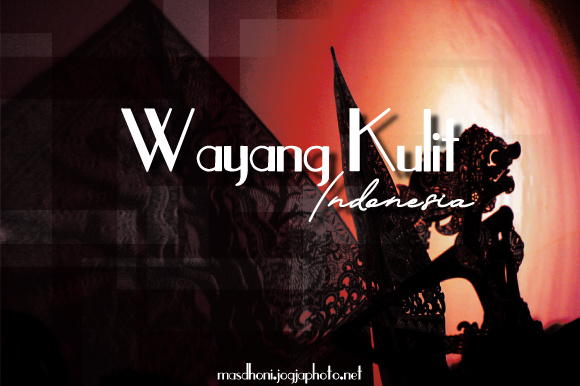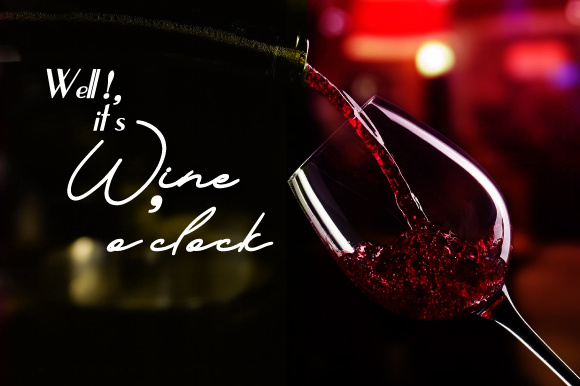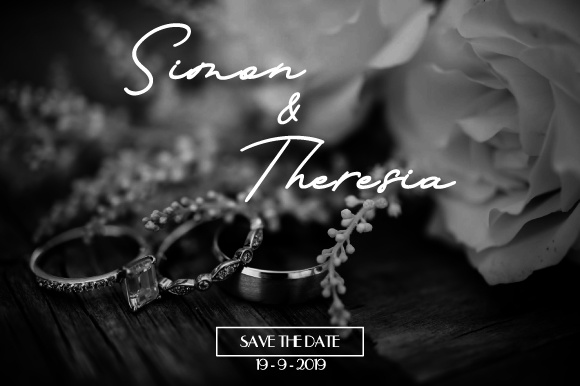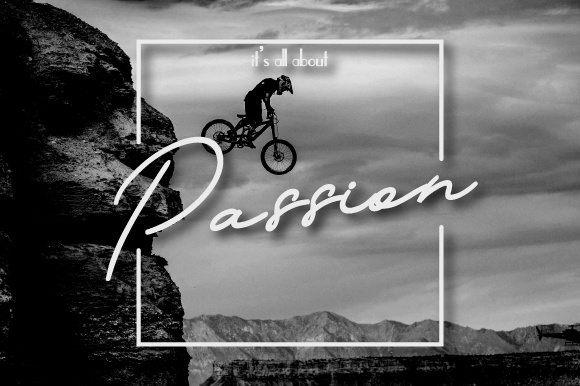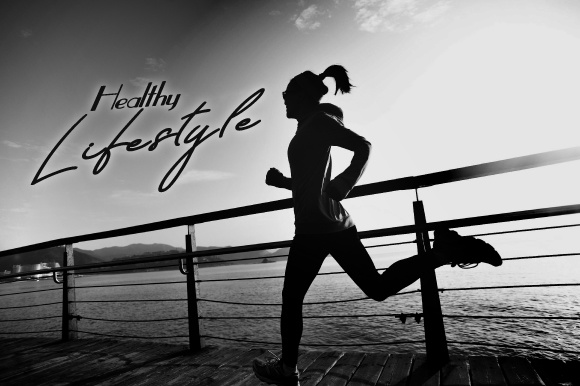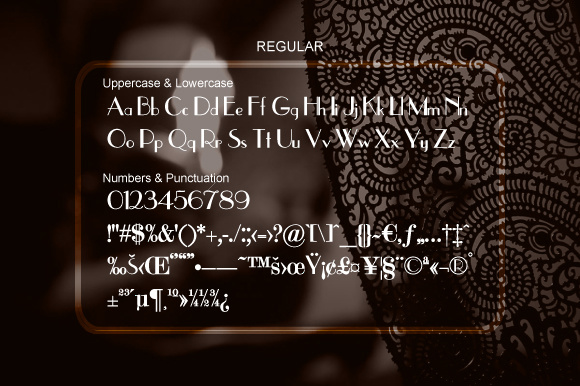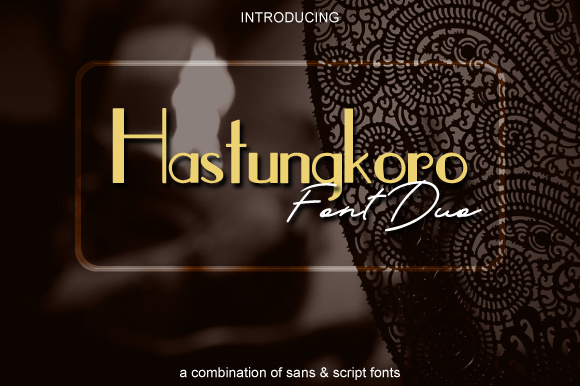
Hastungkoro Duo Font: Elevate Your Designs with a Unique Combination
In the world of design, typography plays a crucial role in conveying messages and setting the tone for a brand or project. With numerous font combinations available, finding the perfect pair that adds a touch of uniqueness and coherence can be a daunting task. However, if you’re looking for a duo that stands out from the rest, look no further than the Hastungkoro Duo Font. This beautiful combination brings together a fun script with a stunning sans, allowing designers and crafters to add a distinctive look and feel to their creations.
The Perfect Pairing: Script and Sans
The Hastungkoro Duo Font is a carefully crafted combination of two fonts that complement each other perfectly. The script font adds a touch of playfulness and elegance, while the sans font provides a clean and modern contrast. This pairing allows designers to create a wide range of designs, from whimsical and youthful to sophisticated and professional. Whether you’re working on a branding project, a wedding invitation, or a digital platform, the Hastungkoro Duo Font is an excellent choice.
Key Features of the Hastungkoro Duo Font
• Unique Combination: The Hastungkoro Duo Font brings together a fun script with a stunning sans, creating a distinctive look that sets it apart from other font combinations.
• High Versatility: The duo font is perfect for a wide range of design projects, including branding, advertising, packaging, and more.
• Elegant and Modern: The sans font provides a clean and modern contrast to the elegant script font, making it ideal for designs that require a touch of sophistication.
• Easy to Read: The fonts are designed to be highly legible, ensuring that your message is conveyed clearly and effectively.
What Makes the Hastungkoro Duo Font Stand Out?
So, what sets the Hastungkoro Duo Font apart from other font combinations? Here are a few key factors:
• Careful Craftsmanship: The Hastungkoro Duo Font is crafted with attention to detail, ensuring that each letter and character is beautifully designed and perfectly proportioned.
• Balanced Contrast: The combination of the script and sans fonts provides a balanced contrast that adds visual interest to your designs.
• Flexibility: The duo font can be used in a variety of design contexts, from digital platforms to print materials.
How to Use the Hastungkoro Duo Font in Your Designs
Using the Hastungkoro Duo Font in your designs is easy and straightforward. Here are a few tips to get you started:
• Pair the Fonts Creatively: Experiment with different font sizes, styles, and arrangements to create a unique look that suits your design.
• Use the Script Font for Headlines: The script font is perfect for headlines, titles, and other attention-grabbing elements.
• Use the Sans Font for Body Text: The sans font is ideal for body text, providing a clean and modern contrast to the script font.
In conclusion, the Hastungkoro Duo Font is an excellent choice for designers and crafters looking to add a unique and coherent look to their designs. With its perfect pairing of a fun script and a stunning sans, this duo font offers a wide range of creative possibilities. Whether you’re working on a branding project, a wedding invitation, or a digital platform, the Hastungkoro Duo Font is sure to elevate your designs and leave a lasting impression.